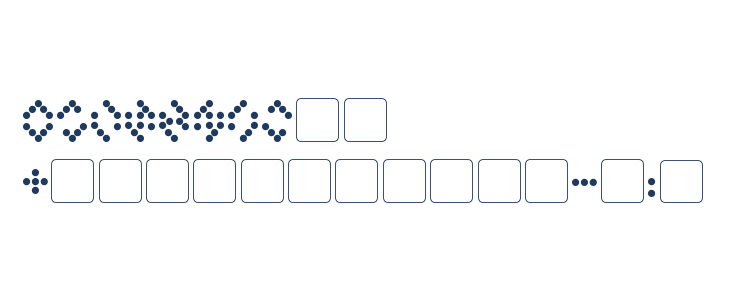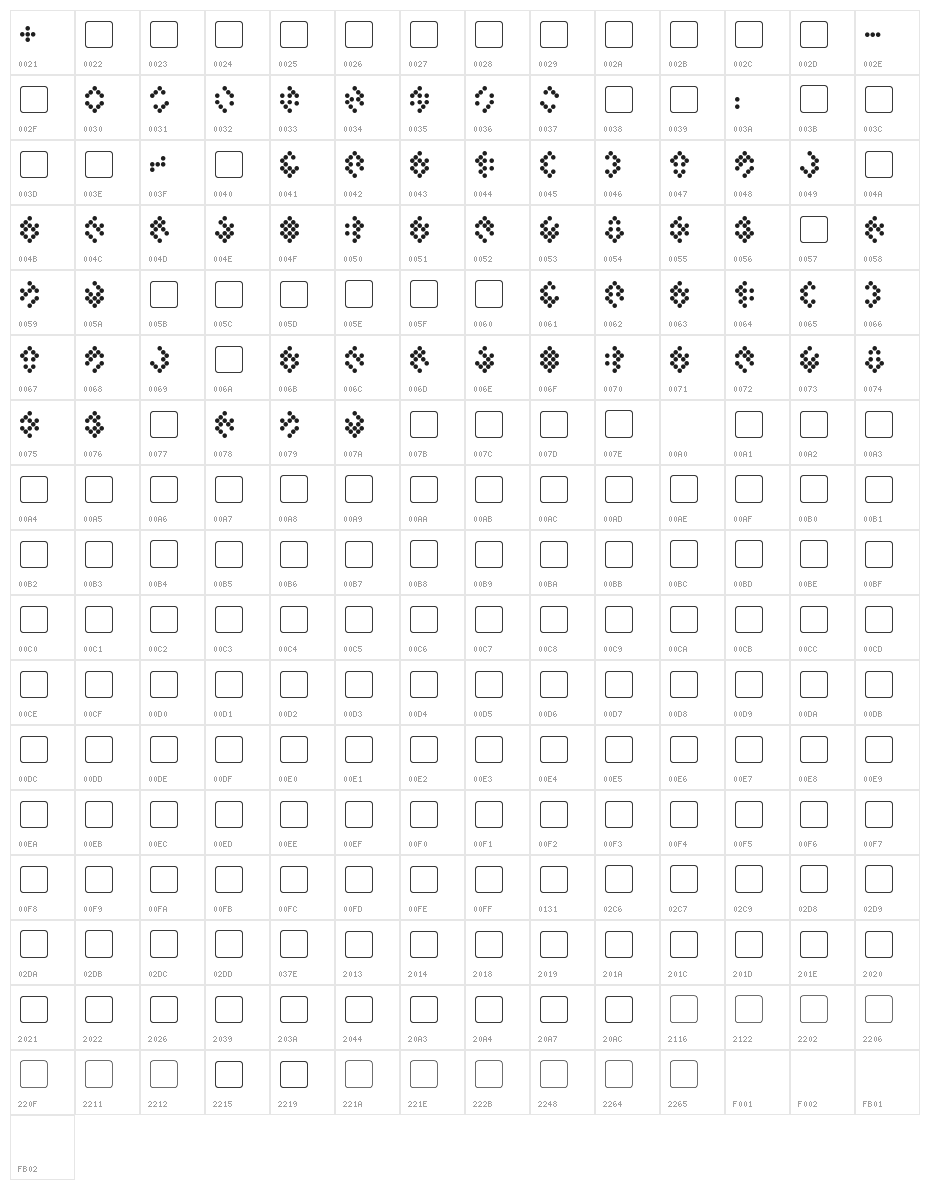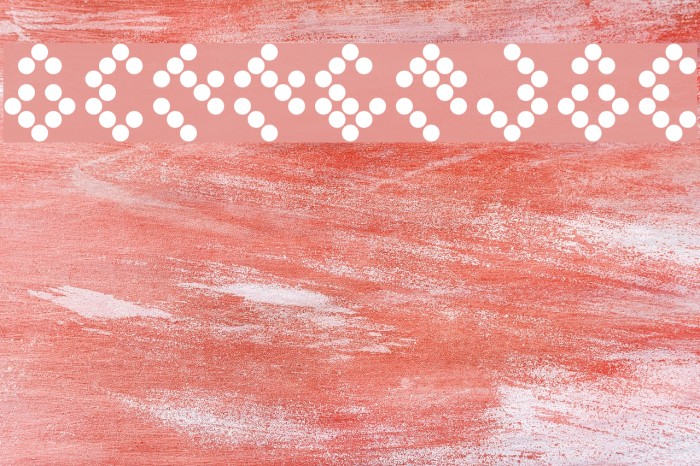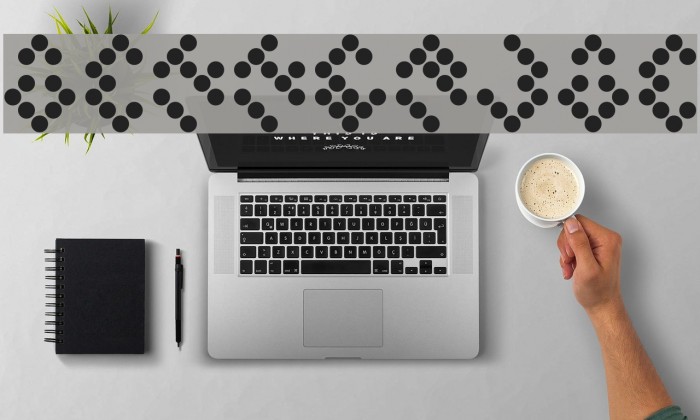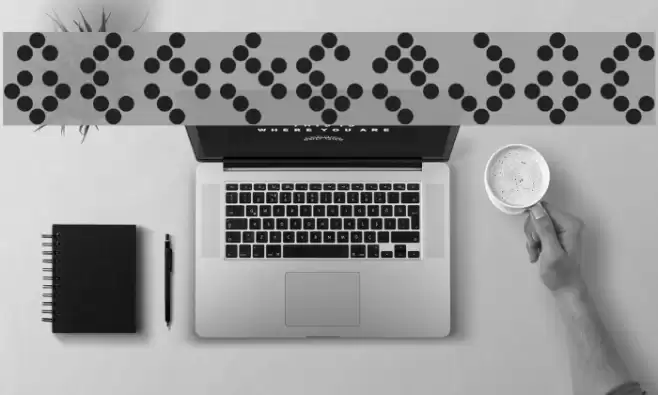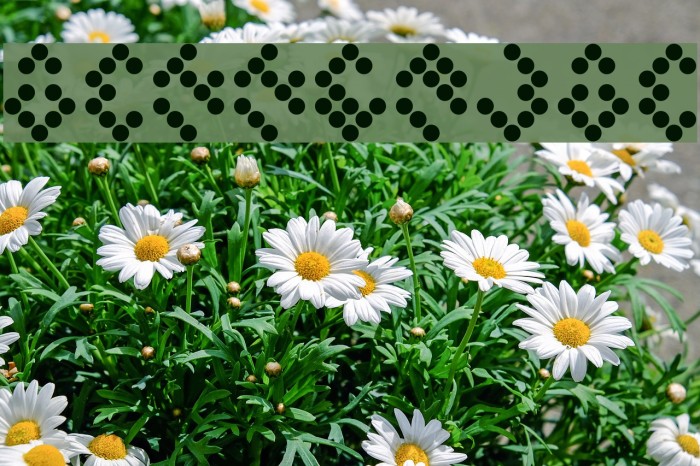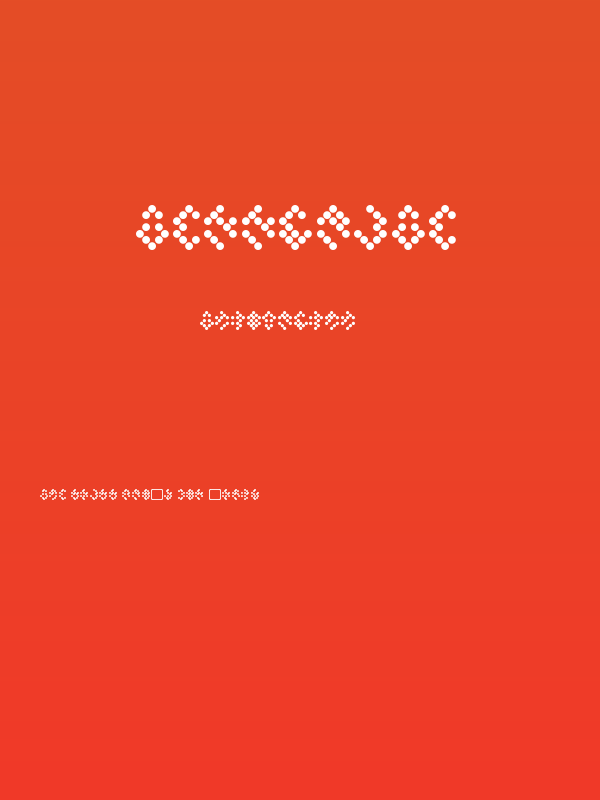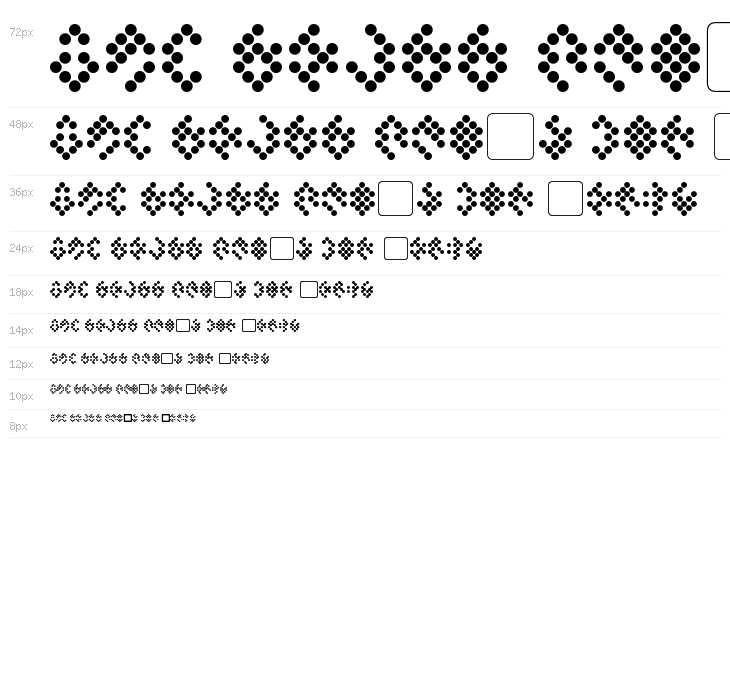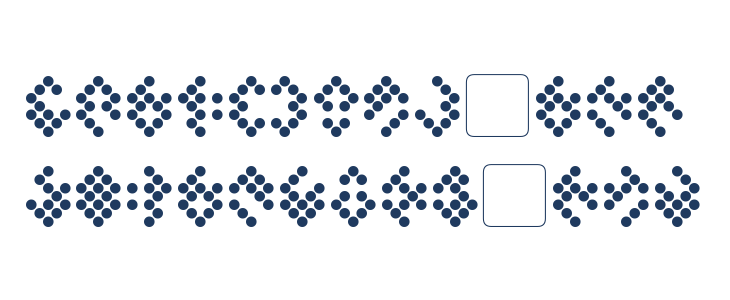
Tellarite Font
Tellarite Description
This is not a valid font. The image appears to depict a series of abstract symbols or patterns that do not correspond to any recognizable alphabet or typographic style. The symbols are composed of dots arranged in various configurations, suggesting a decorative or symbolic use rather than a functional typeface. Without recognizable characters or consistent typographic elements, it cannot be categorized as a font suitable for textual representation.